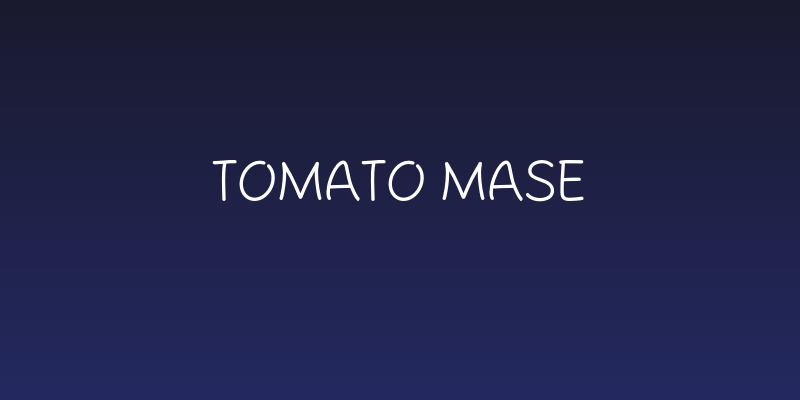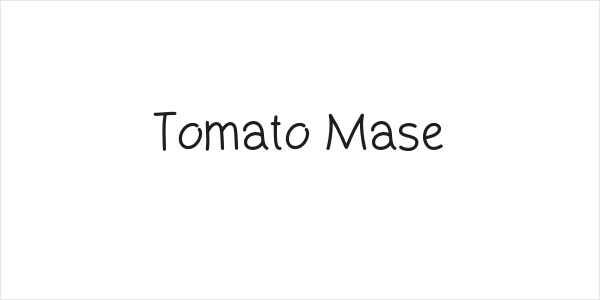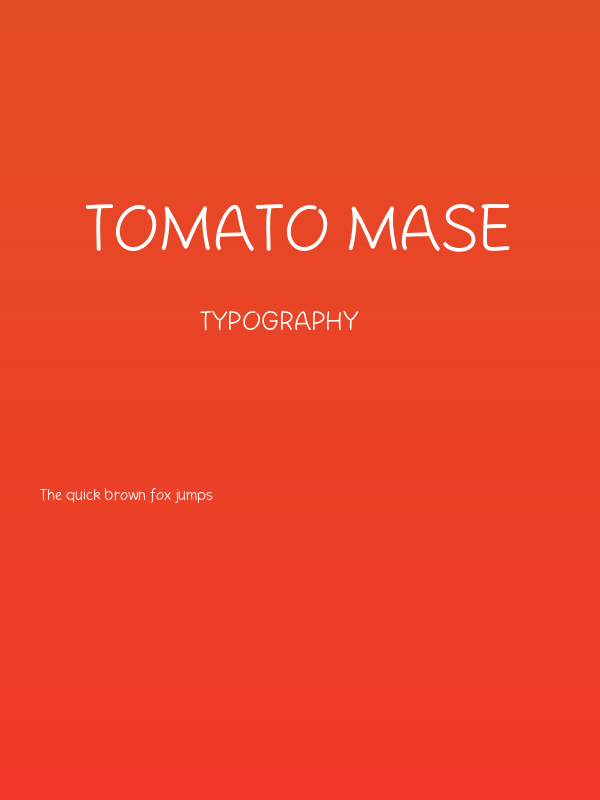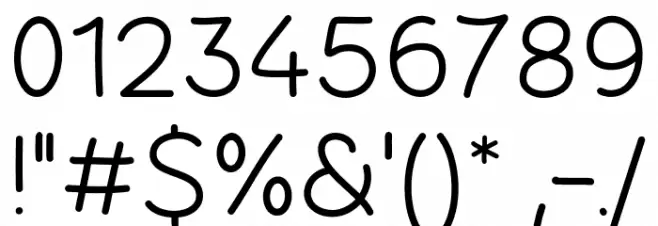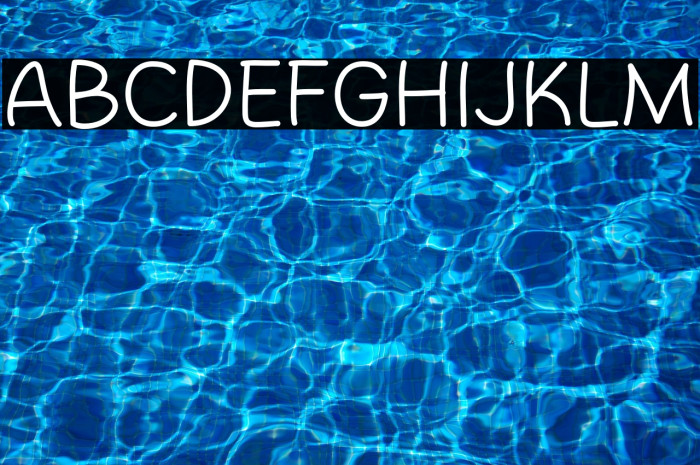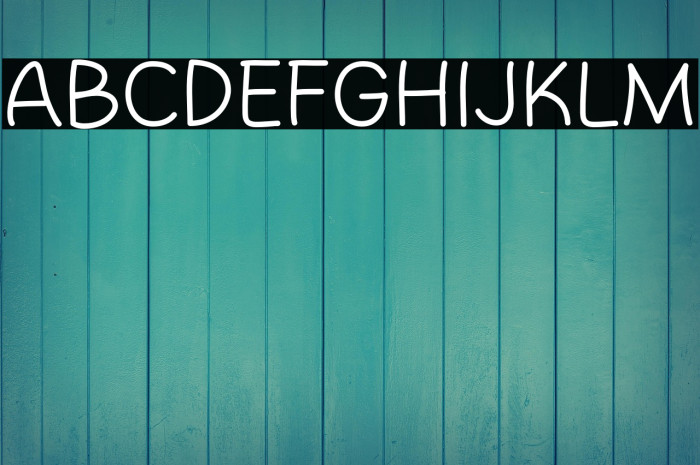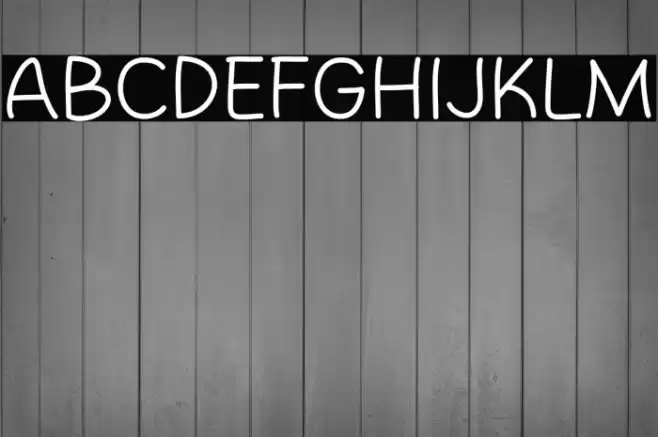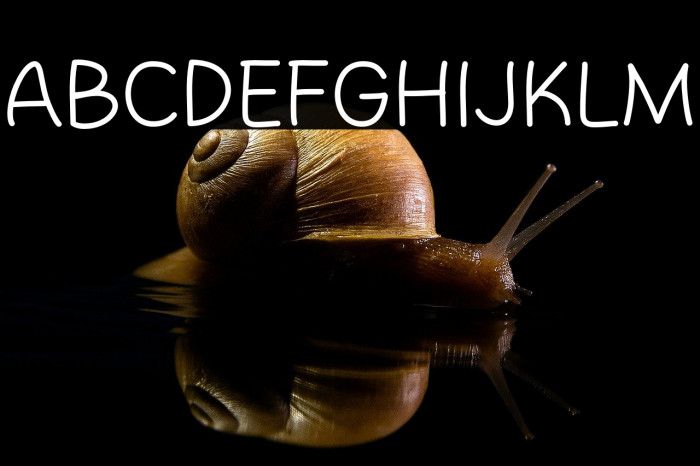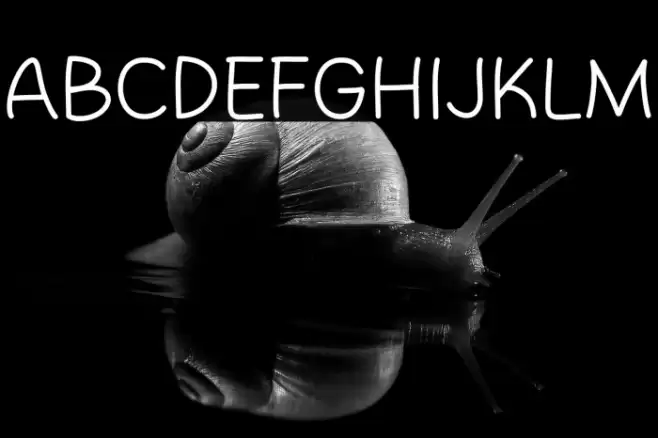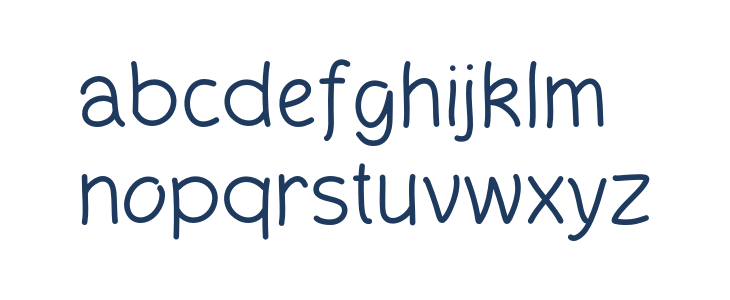
Tomato Mase Font
Tomato Mase Description
This playful and whimsical font features rounded, hand-drawn characters that convey a sense of friendliness and approachability. The letters are slightly irregular, giving them a casual, informal appearance that is both charming and engaging. The font includes a full set of uppercase and lowercase letters, numerals, and a variety of special characters. Its design is consistent across all characters, maintaining a cohesive look that is easy to read while still being visually interesting. The strokes are uniform in thickness, contributing to a clean and simple aesthetic that is versatile for various design applications.
| Proposed Projects | Ideal for children's books, playful branding, casual invitations, and creative posters. |